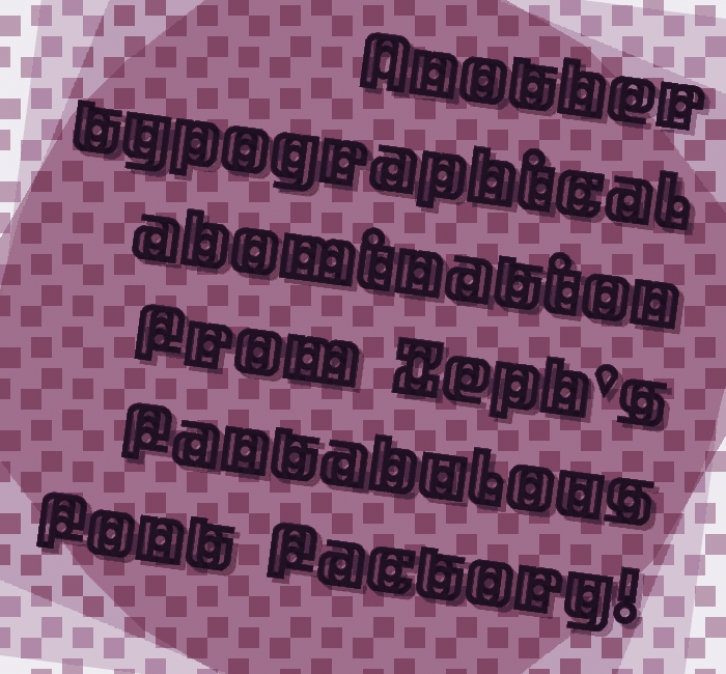
The third iteration of a design called Tangereen (see the first two at https://www.fontspace.com/font/34404-tangereen ). It also has some influence from another design, Paradoxy Effect (https://www.fontspace.com/pixel-kitchen/paradoxy-effect ).
This one is meant for display and logo uses since it is much fancier than its predecessors. It still supports quite a few languages, though!